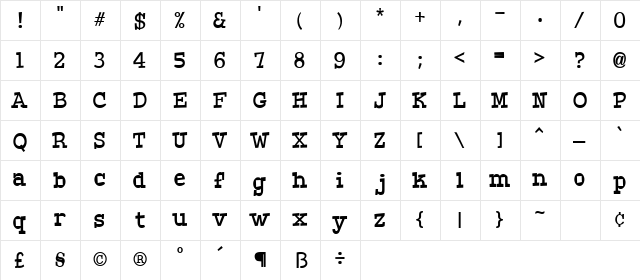
Kuntry Combo 3in1
Design Context for Kuntry Combo Typeface
Kuntry Combo is a composed and adaptable typeface that performs quietly and consistently across a wide range of design contexts.